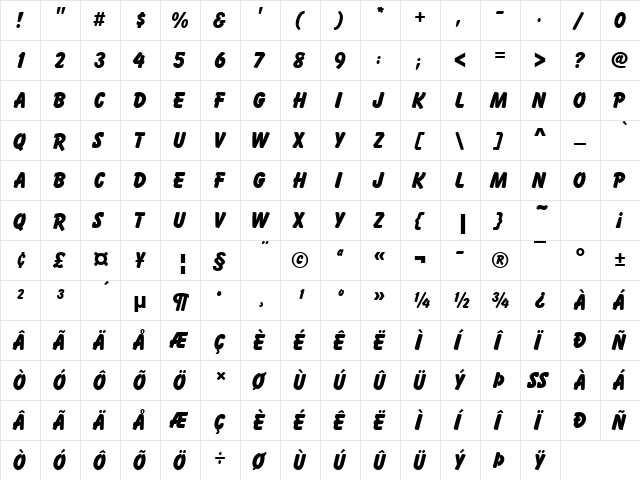
Balloon Becker Ext Bold Regular
Design Context for Balloon Becker Ext Bold Typeface
Balloon Becker Ext Bold is a composed and adaptable typeface that performs quietly and consistently across a wide range of design contexts. The heavy weight commands attention and anchors typographic hierarchies.